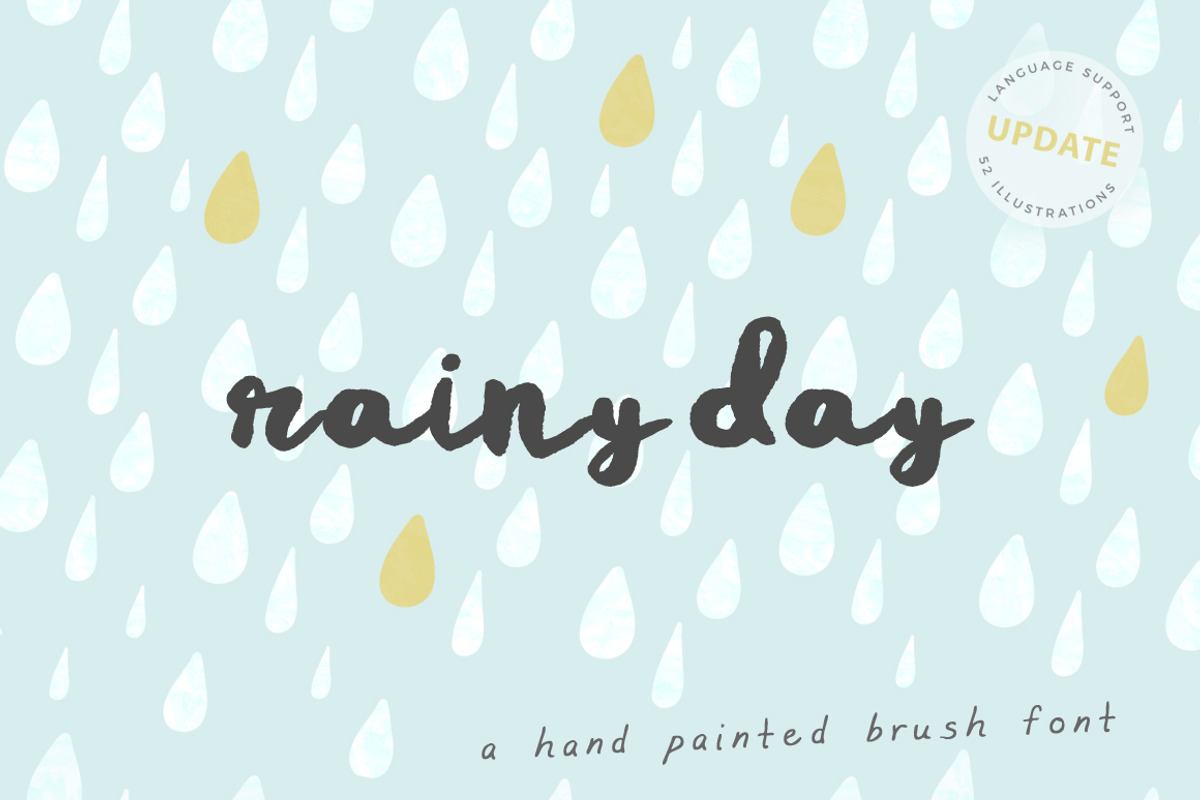
Rainy Day Brush Script Font Free Download
Add a personal and expressive touch to your designs with Rainy Day Brush Script Font Free Download. This charming brush-style script font features flowing, hand-painted strokes that evoke a sense of movement and creativity, making it perfect for casual branding, invitations, social media graphics, posters, and creative projects that need a relaxed, organic feel.
Rainy Day combines the fluidity of brush lettering with modern script charm. It includes uppercase and lowercase letters, numerals, punctuation, and stylistic alternates—perfect for testing expressive, artistic layouts in both print and digital formats.